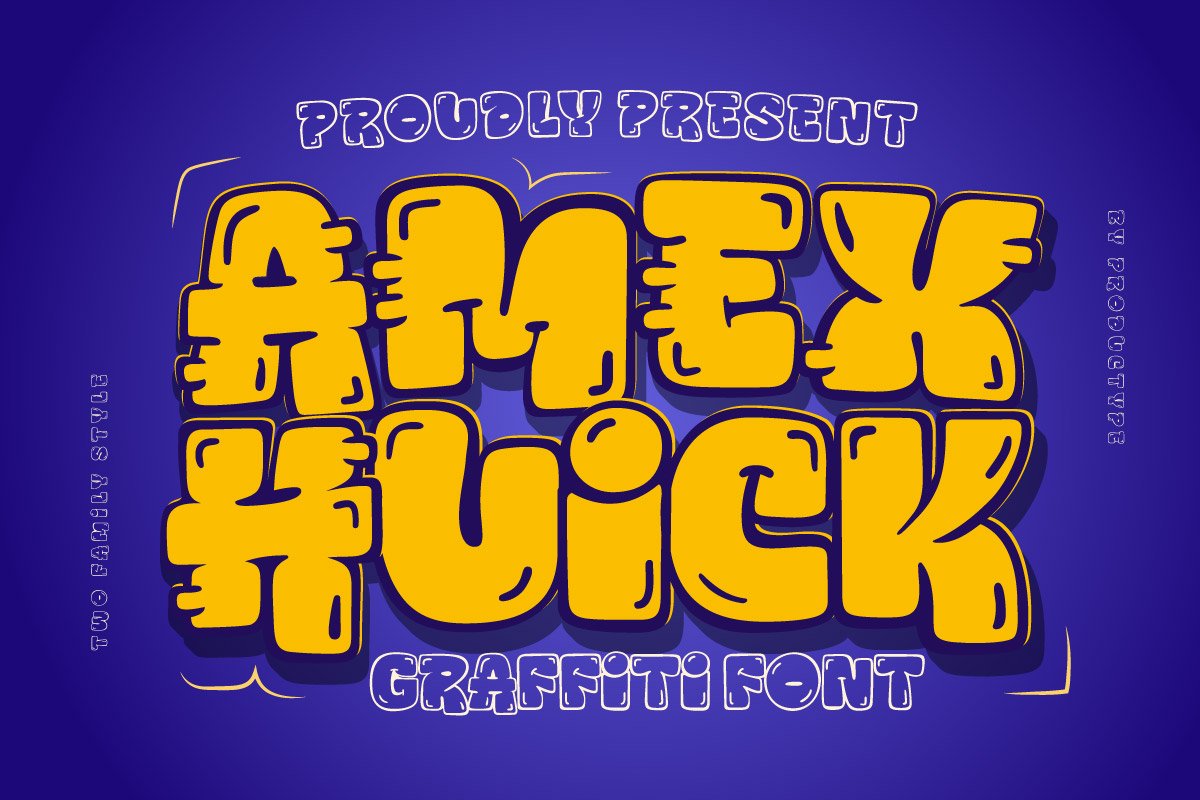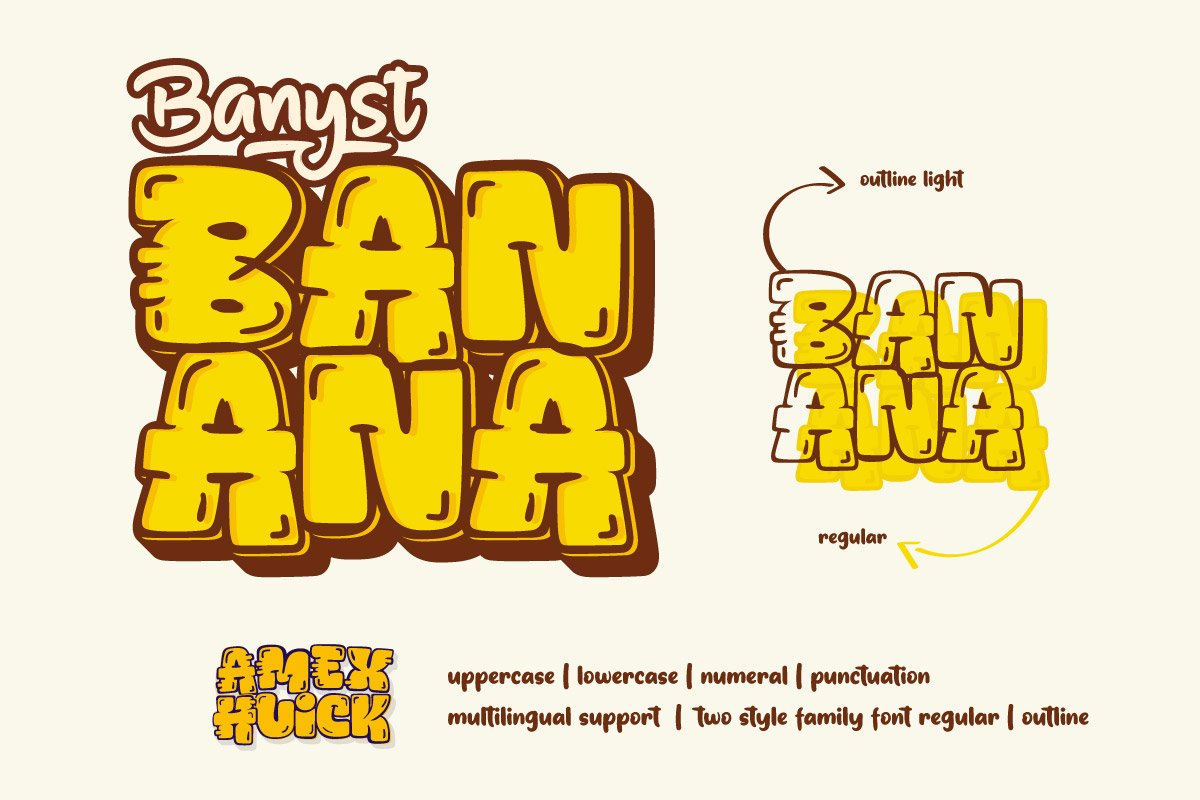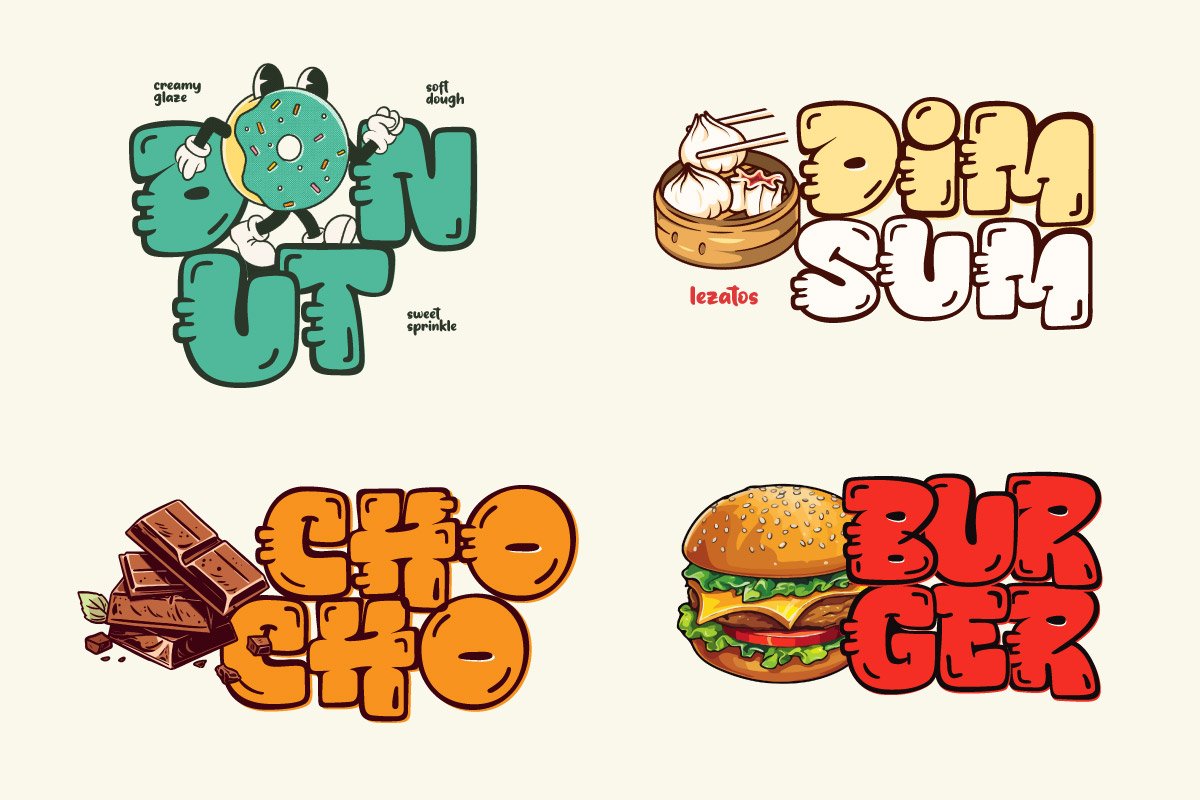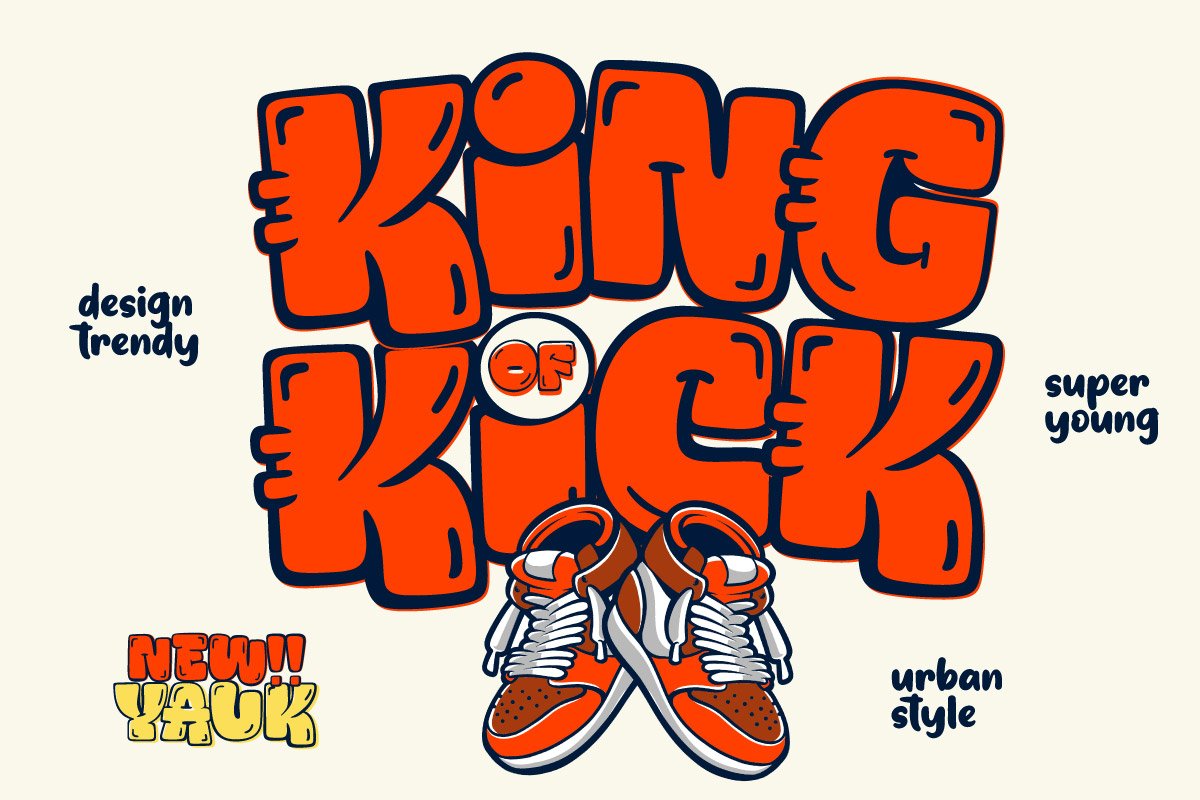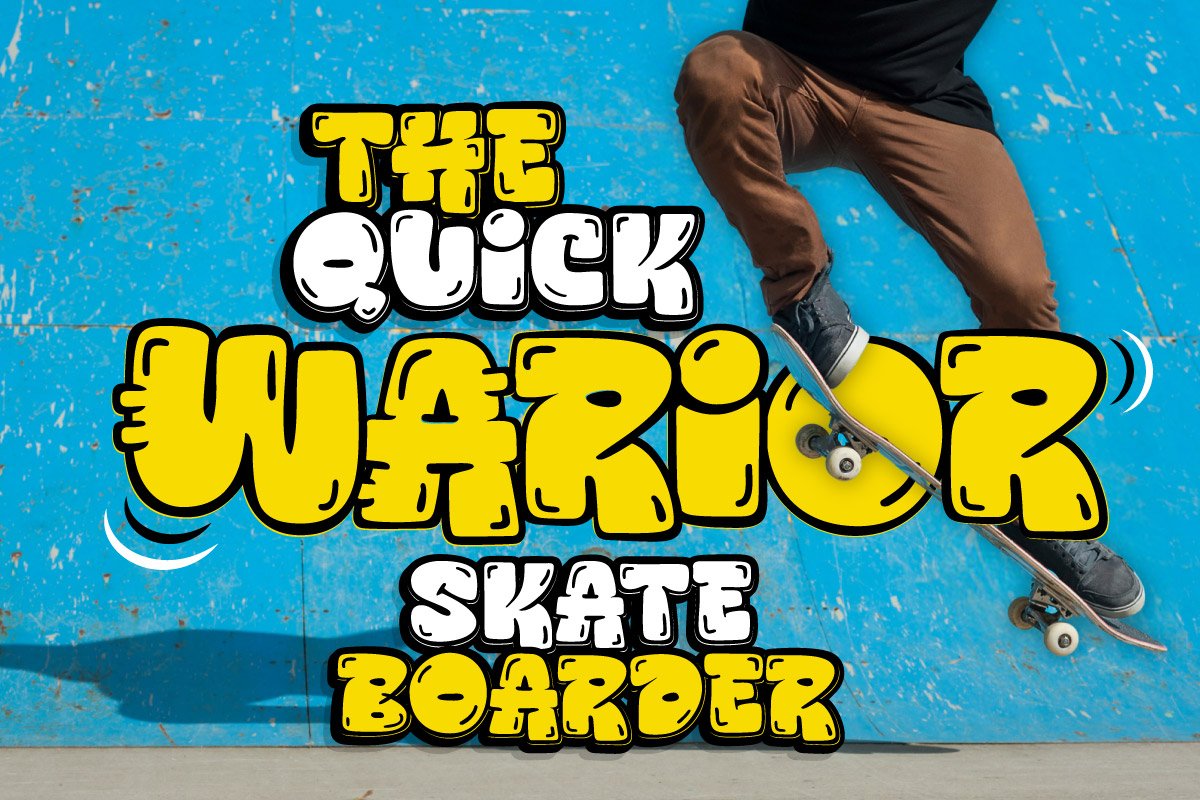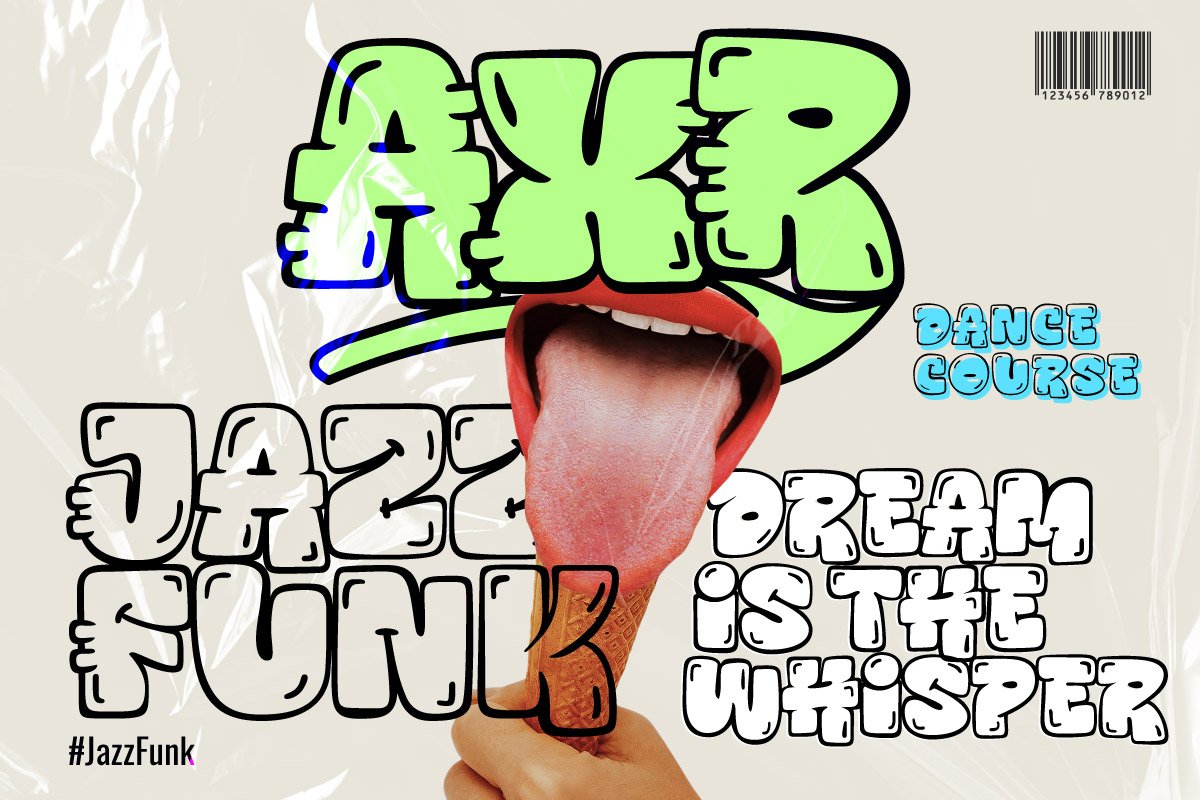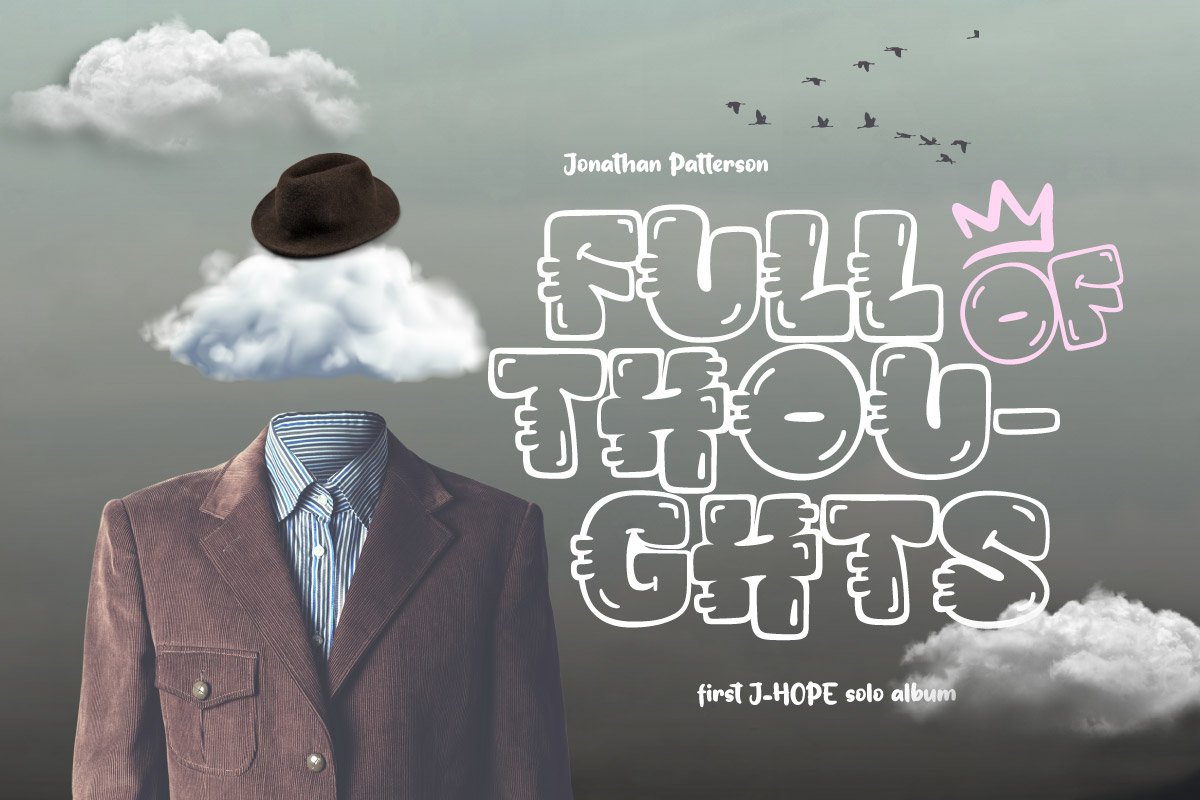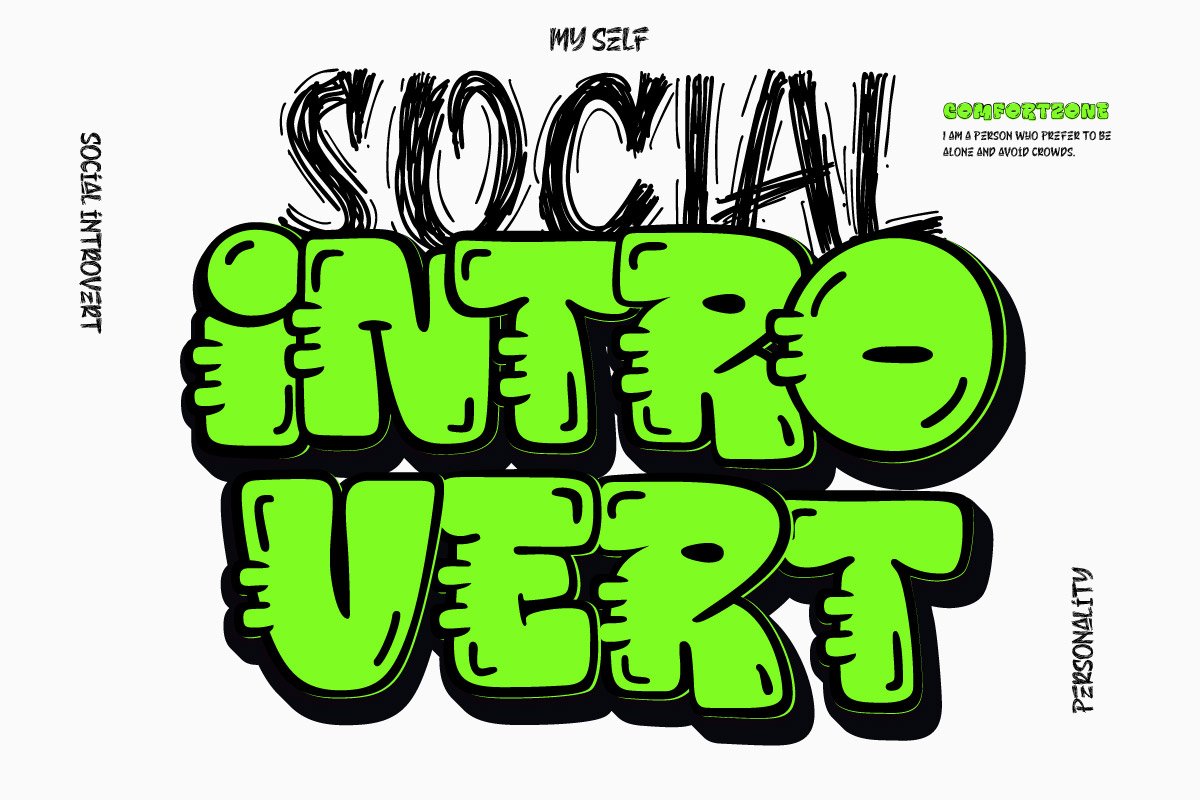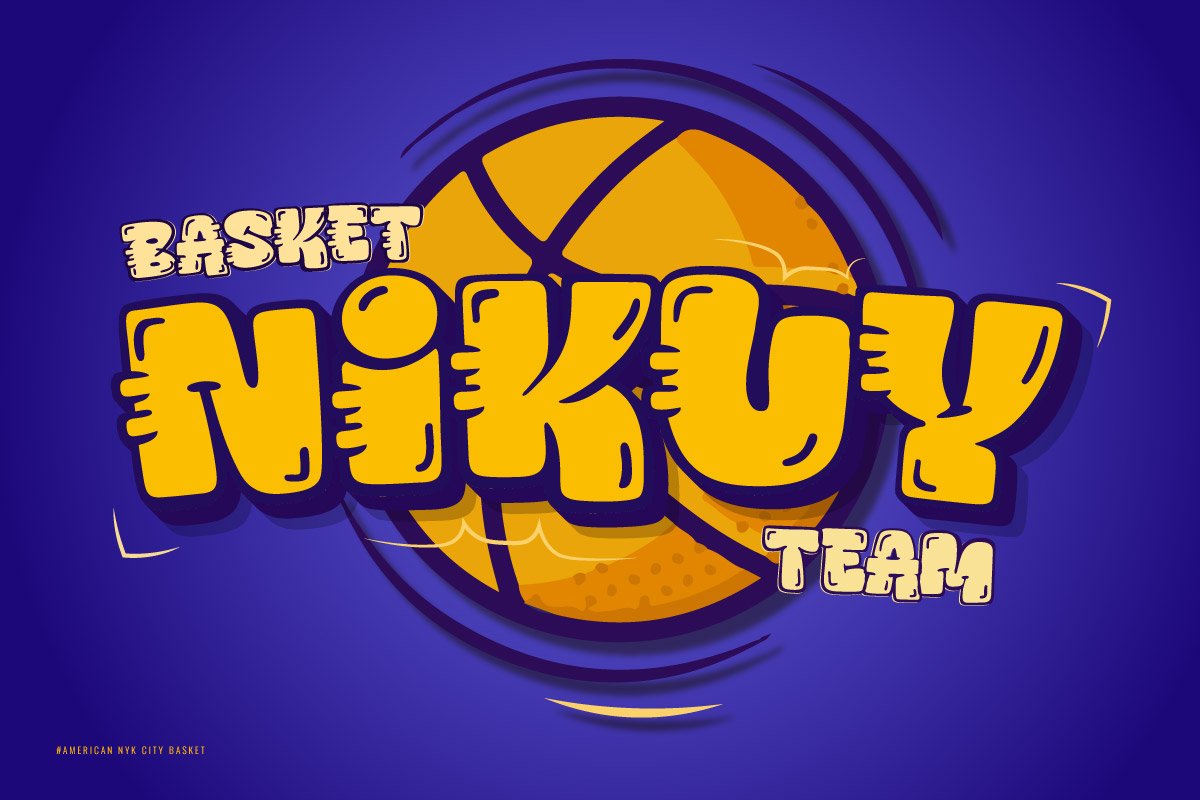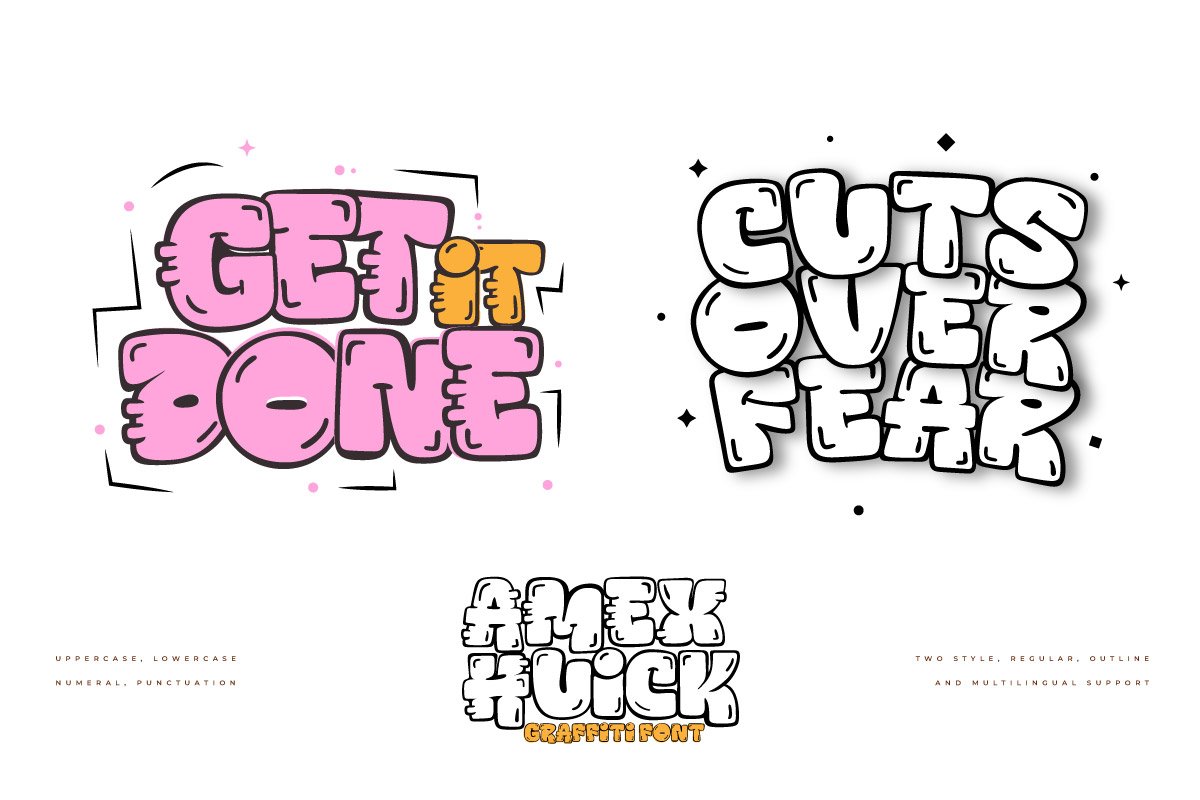
Amex Huick – Display Graffiti Font
Outline Light
Regular
Unleash your creativity with Amex Huick, a dynamic Display Graffiti Font that comes in two versatile styles: Regular and Outline Light. Perfect for street art-inspired designs, edgy branding, urban posters, and more, Amex Huick captures the raw energy and boldness of graffiti culture. Each character is designed to mimic the fluid strokes and vibrant spirit of graffiti, making your text stand out with an unmistakable urban flair.
The Regular style of Amex Huick offers a solid and impactful presence, perfect for headlines and titles that demand attention. The Outline Light style, on the other hand, provides a lighter, more open aesthetic that adds a layer of complexity and creativity to your designs. Whether you’re looking to create striking logos, captivating posters, or unique apparel designs, Amex Huick delivers the versatility and style you need.
With its graffiti-inspired design and two distinct styles, Amex Huick ensures your projects are both eye-catching and memorable. Embrace the bold and energetic spirit of street art with Amex Huick, the ultimate font for making a statement.